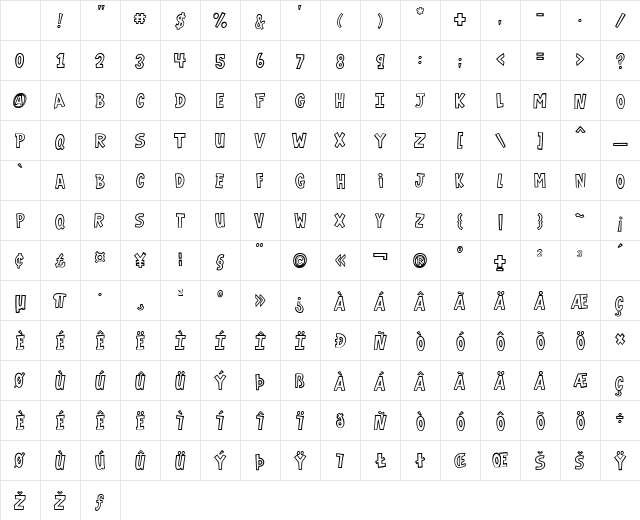
Complete VTCGarageSale Outlined glyph index. Displaying only characters natively supported by VTCGarageSale Outlined font.
VTCGarageSale is built around its visual character rather than neutral utility - its distinctive forms are designed to make an impression at display sizes.
Font Pairing: Pair with a clean neutral sans-serif for body copy to let VTCGarageSale's character lead without overwhelming the composition.
Pro Tip: Use VTCGarageSale exclusively at display sizes - it was designed to be seen, not read at length. Let a neutral companion handle body copy.